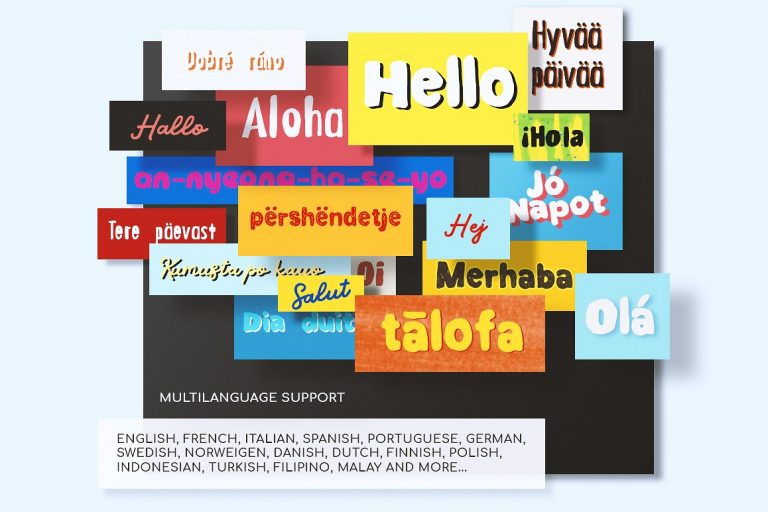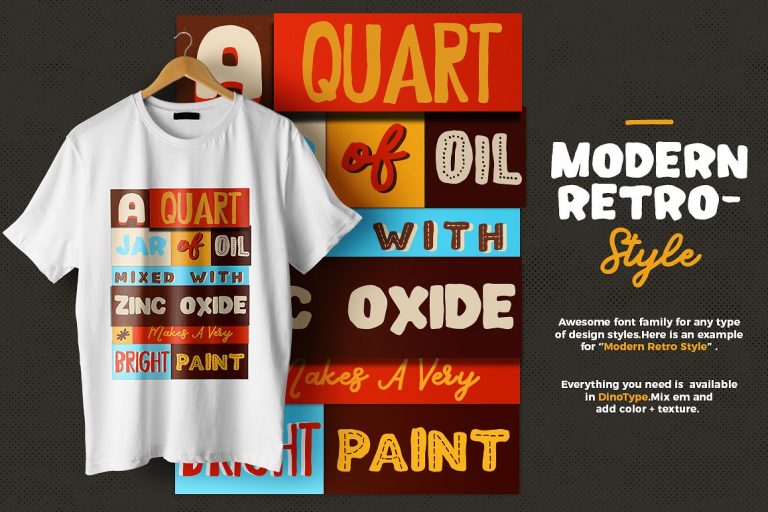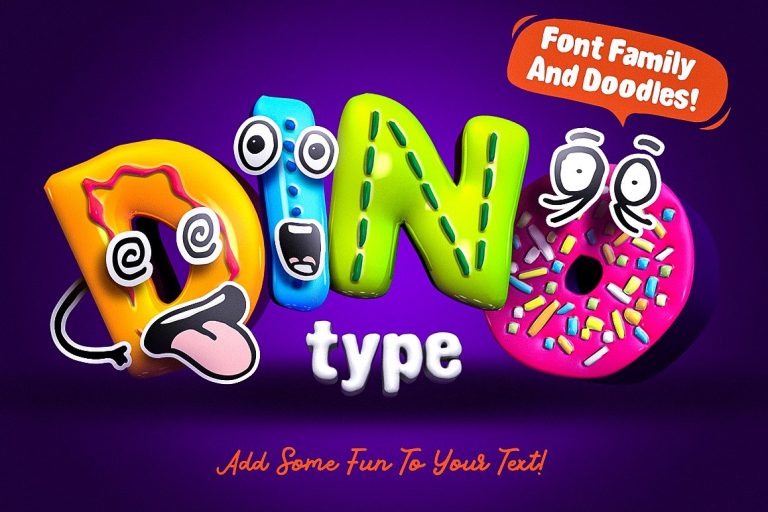
DinoType Font Family
Introducing DinoType. It is designed by Yasir Ekinci , this is a premium font, are sold on creativemarket, but it was great, it is free today for download. Super fun and a surprising font with unlimited variety. Are you tired of writing? do you want to have some fun? Why do not you try DinoType? DinoType has fun doodles besides. So you can make awesome letter characters with DinoType Doodles!